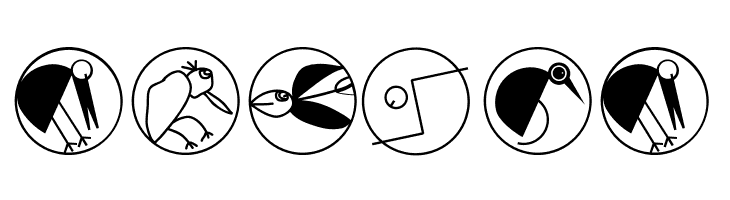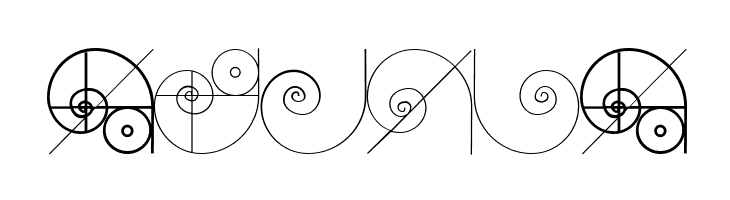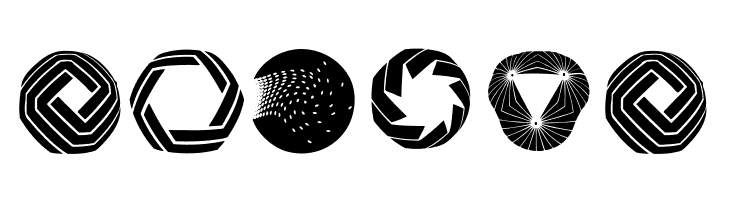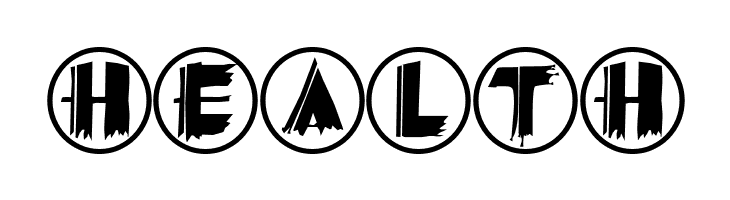
Bold, uppercase letters with shadow effects in circular shapes, offering a vintage and decorative style.
A modern, fragmented font with bold, circular designs.
Abstract, circular icons with line-drawn faces and animals.
Ornate, pictorial font with zodiac-themed illustrations in circular frames.
A decorative font inspired by nautilus shells, featuring intricate spiral and circular designs.
A whimsical, bird-themed decorative font with spiky, circular designs.
A whimsical, eye-themed decorative font with circular illustrated glyphs.
A decorative symbol set featuring abstract, circular, and geometric marks.
A bold, textured font with circular backgrounds and a woodcut style.
A decorative font with fragmented characters in bold circular frames.